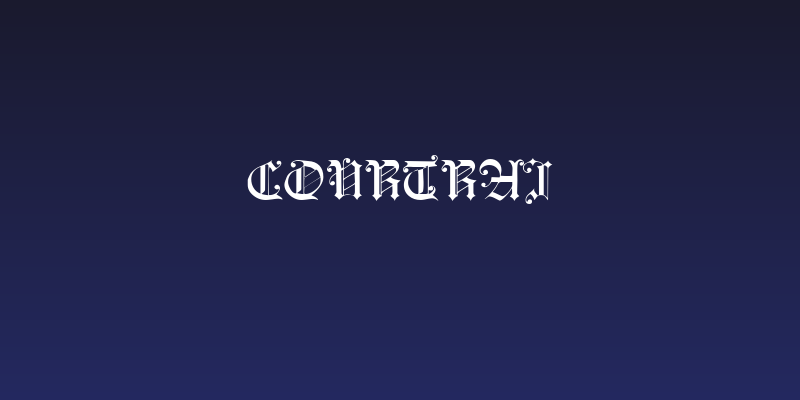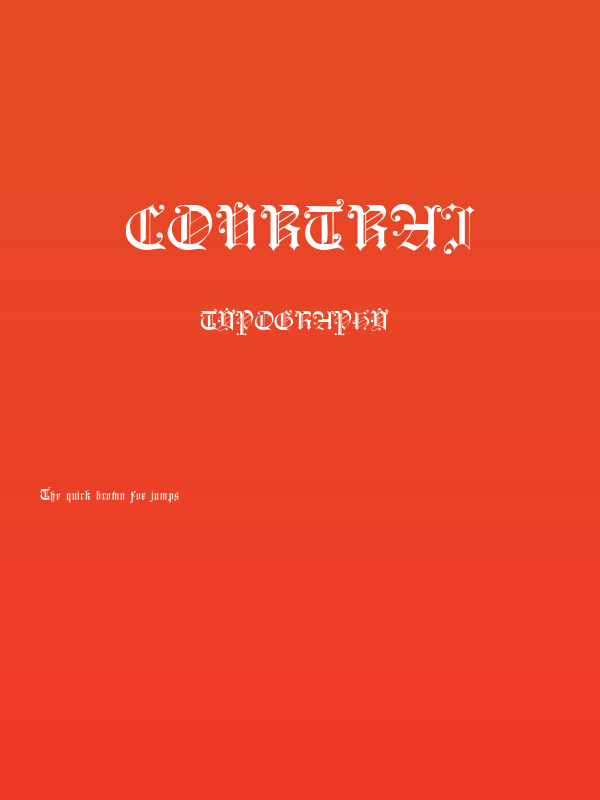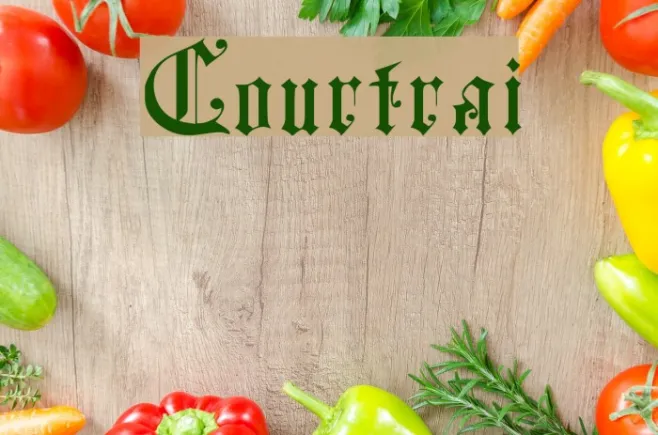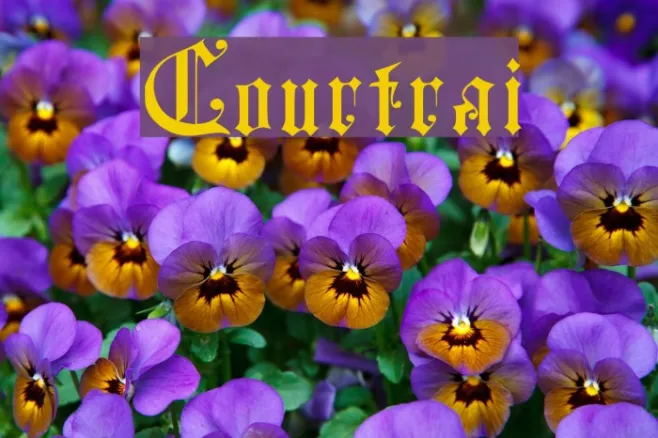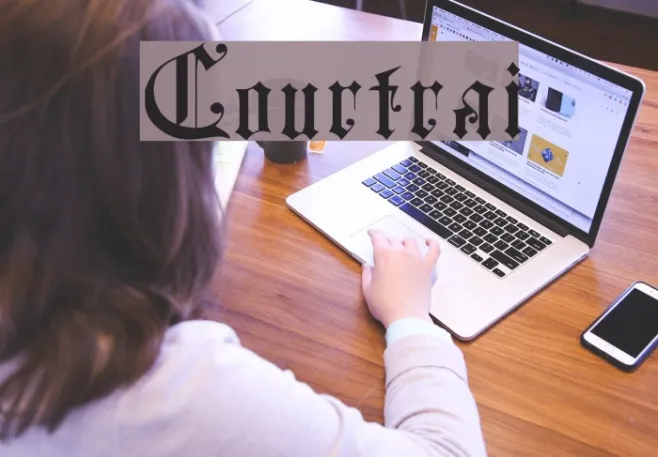
Courtrai Font
Courtrai Description
This font exhibits a classic blackletter style, characterized by its intricate and ornate design. The letters are bold and angular, with sharp edges and decorative flourishes that give it a medieval appearance. The uppercase letters are particularly elaborate, featuring additional embellishments that enhance their gothic aesthetic. The lowercase letters maintain the same stylistic elements but are slightly more subdued in their ornamentation. Numbers and special characters are consistent with the overall theme, showcasing the same boldness and decorative flair. This font is highly stylized, making it ideal for projects that require a historical or traditional touch.
| Proposed Projects | Suitable for historical documents, wedding invitations, certificates, and branding that requires a traditional or gothic touch. |